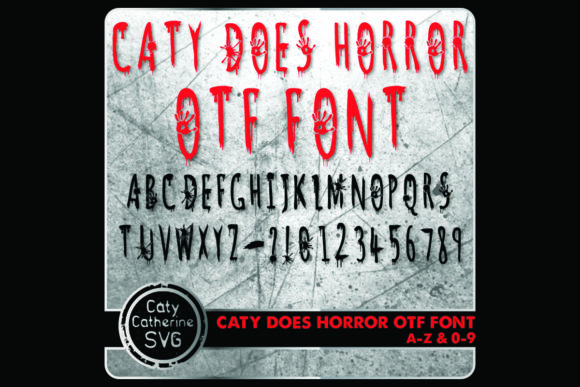
In a realm where darkness has its voice and fear has its shape, allow us to introduce you to Caty Does Horror – the font that breathes life into your nightmares. It's not just a font; it's an incantation that weaves shadows into words, dripping with dreadful elegance. Picture this: a Halloween night so haunting, it leaves your pulse racing. The moon, an accomplice to the creeping terror, casts an eerie glow over a poster adorned with Caty Does Horror. Each letter is a chilling masterpiece, conjuring images of sinister tales and bone-chilling whispers. The font embraces the otherworldly, captivating your audience with its spine-tingling aesthetics.
Caty Does Horror isn't just for Halloween; it's a year-round thrill ride for those with a taste for the macabre. Unleash its potential on t-shirts that speak louder than words, evoking a symphony of screams and gasps. Bring horror movie posters to life, where each letter dances like a haunting melody, heightening the tension and anticipation. Embrace the dark corners of your imagination and let Caty Does Horror guide you through the labyrinth of unease. It's a font that doesn't just sit on the page; it seeps into the atmosphere, creating a palpable sense of dread that's sure to leave an unforgettable mark.
This decorative font is crafted with meticulous attention to detail, each stroke a deliberate dance of darkness. It's the perfect companion for your creative endeavors, waiting to infuse your projects with a touch of the macabre. With Caty Does Horror, you're not just creating content; you're weaving spells that ignite the primal fears lurking within your audience. Are you ready to embrace the unsettling beauty of Caty Does Horror? Dive into the abyss of creativity and let this font lead you on a journey of nightmares and ecstasy.